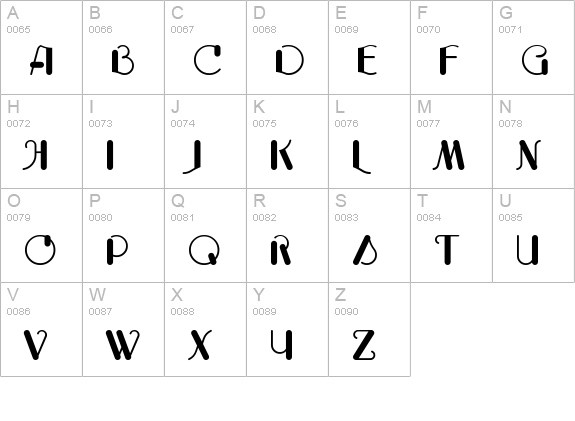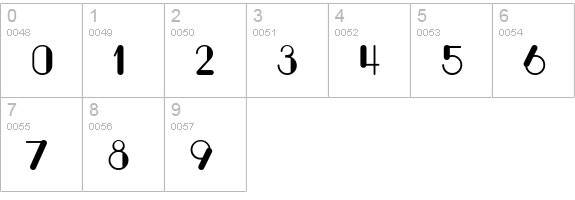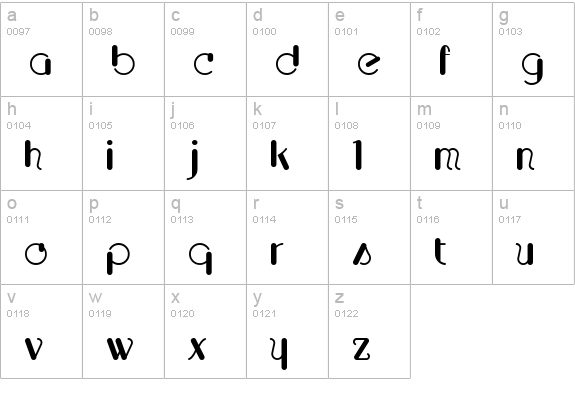
Cupola Font Details
Introducing Cupola font - a modern and elegant typeface that exudes sophistication and charm. With its sleek lines and stylish curves, Cupola is perfect for a wide range of design projects, from branding to editorial design. This versatile font is sure to make your text stand out and leave a lasting impression. What's even better is that Cupola font is available for free! You can download this beautiful typeface at FontsMarket.com and start using it in your projects right away. Don't miss out on this amazing opportunity to add a touch of class to your designs with Cupola font.